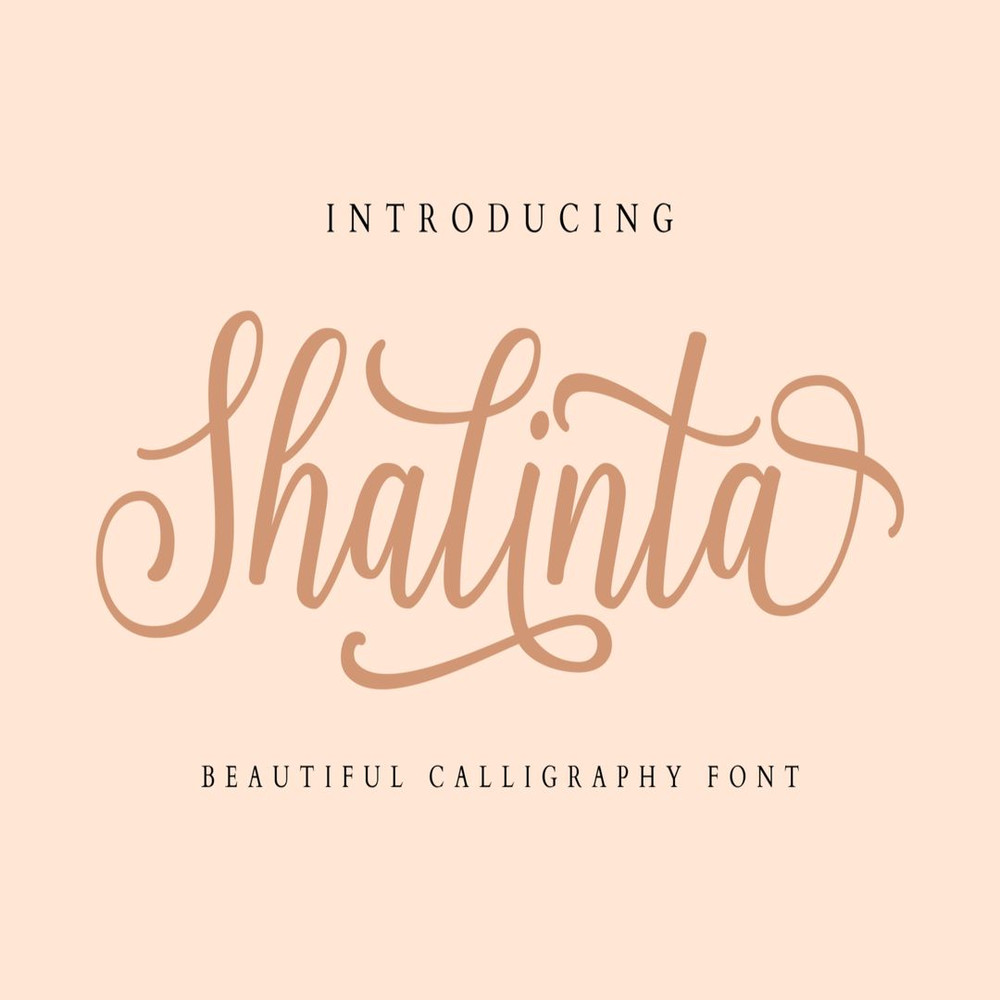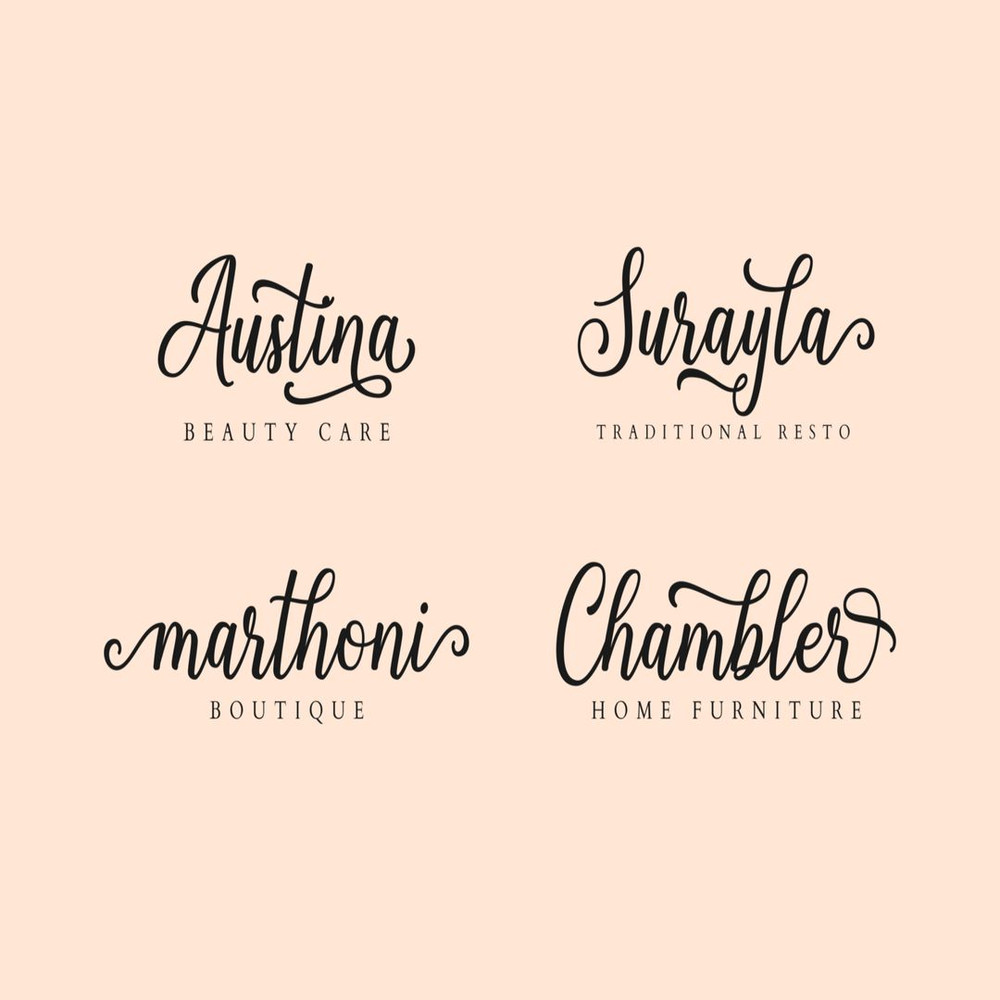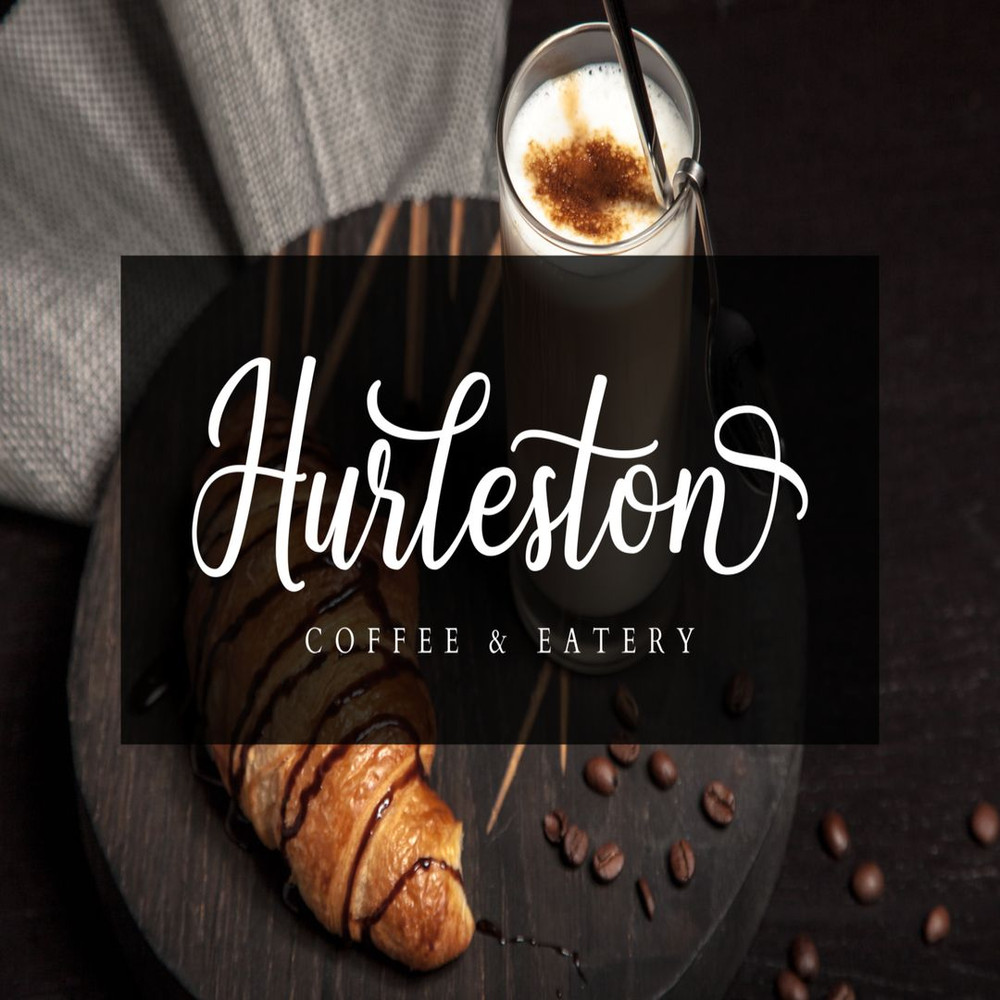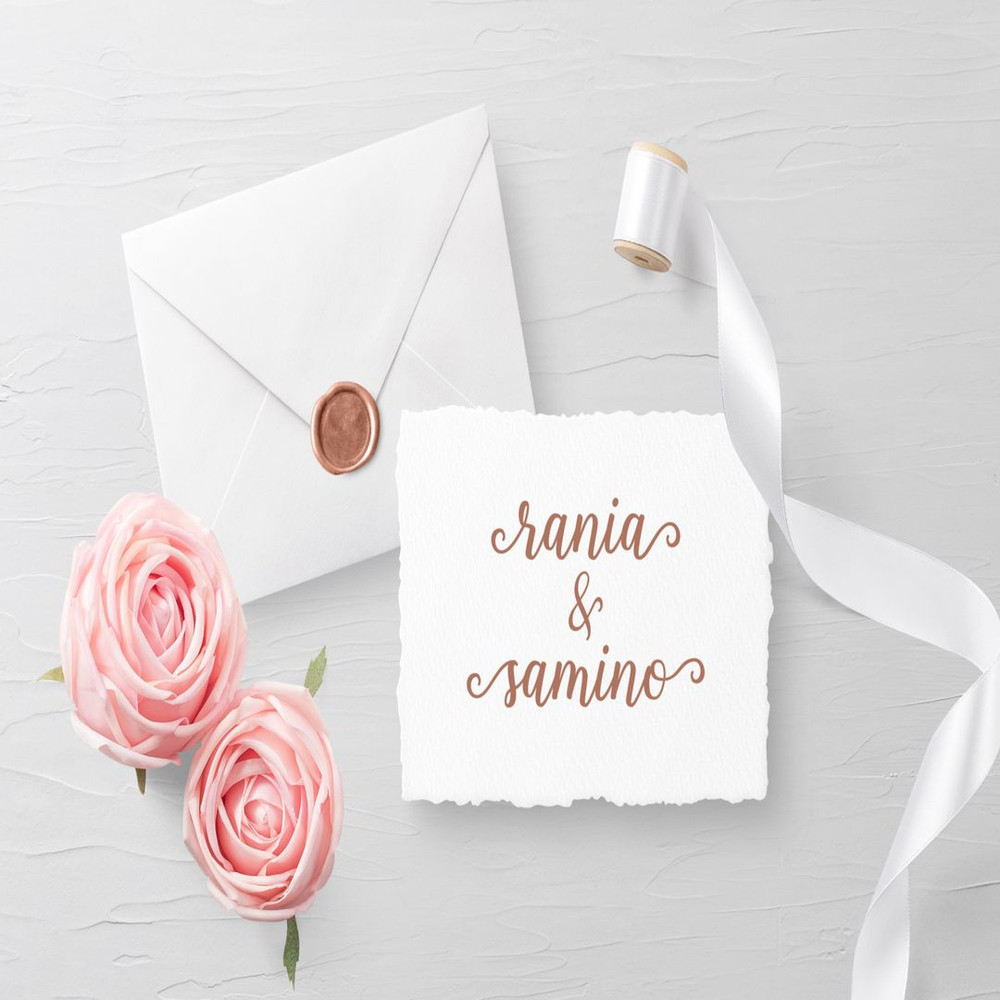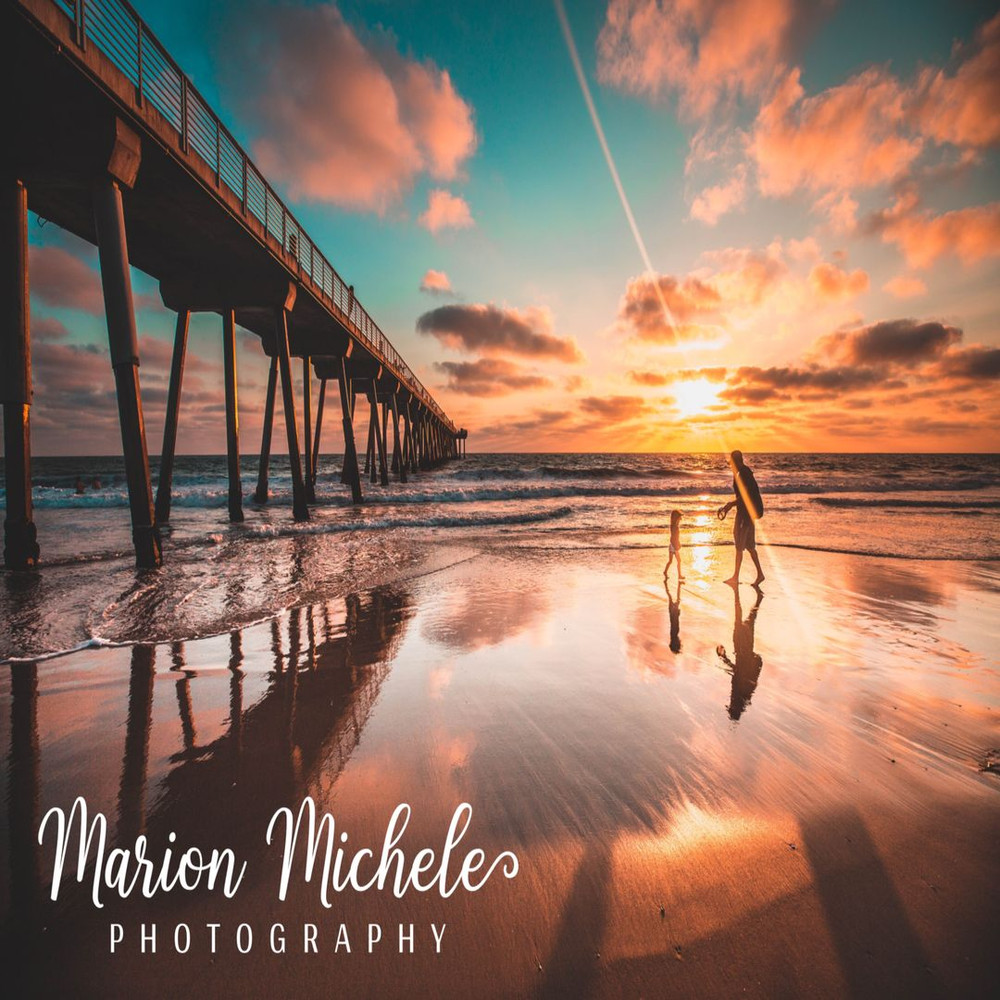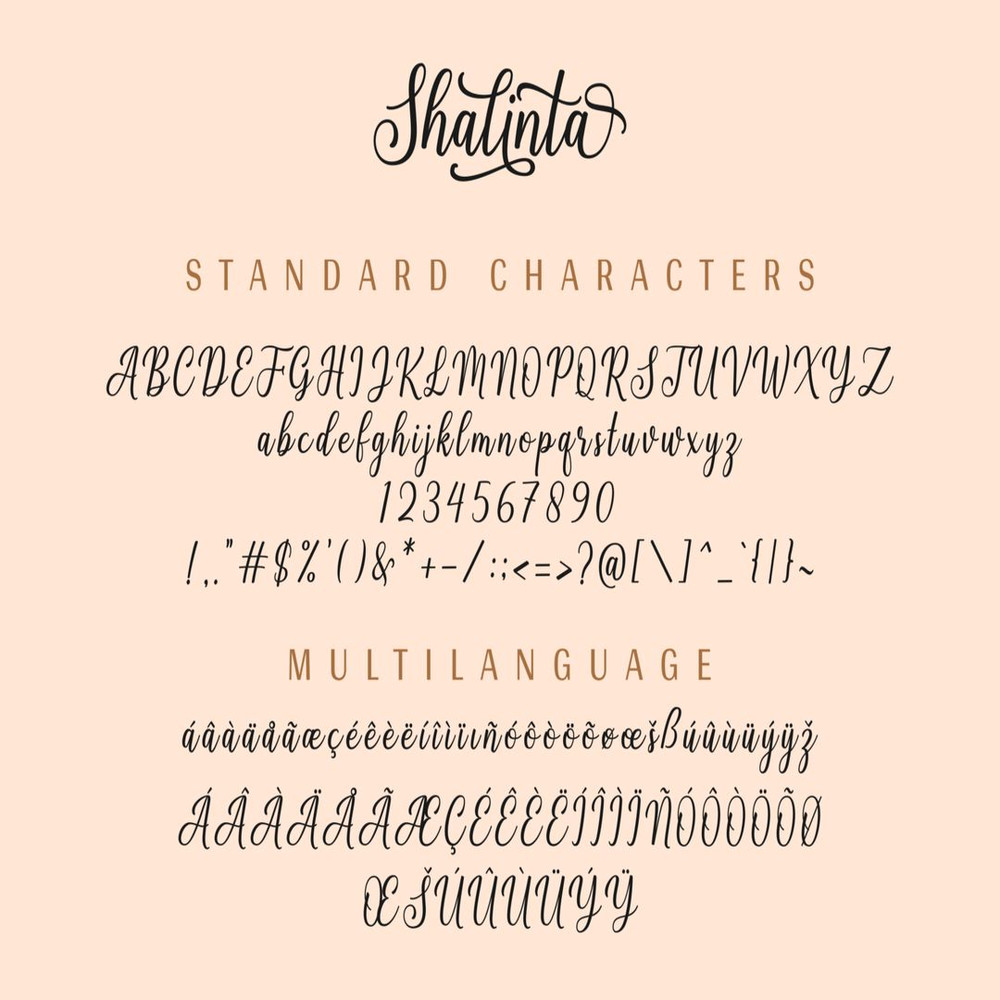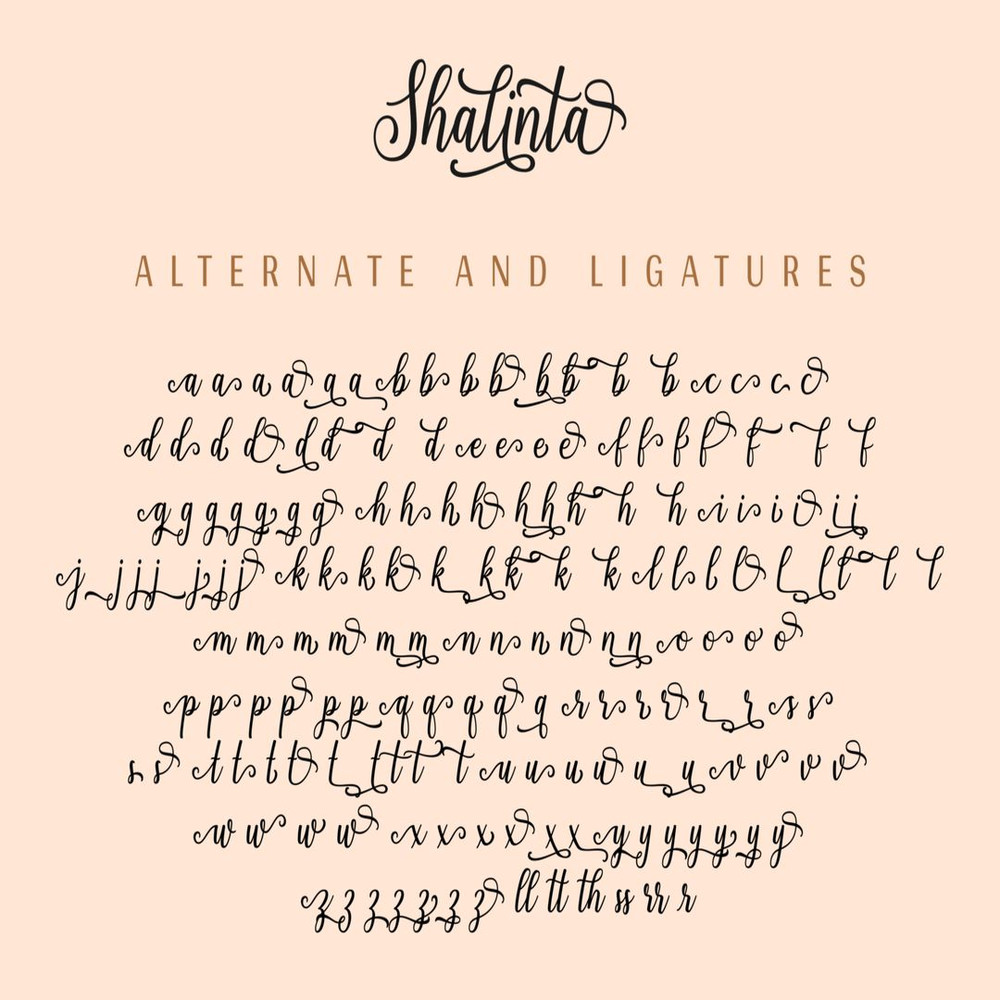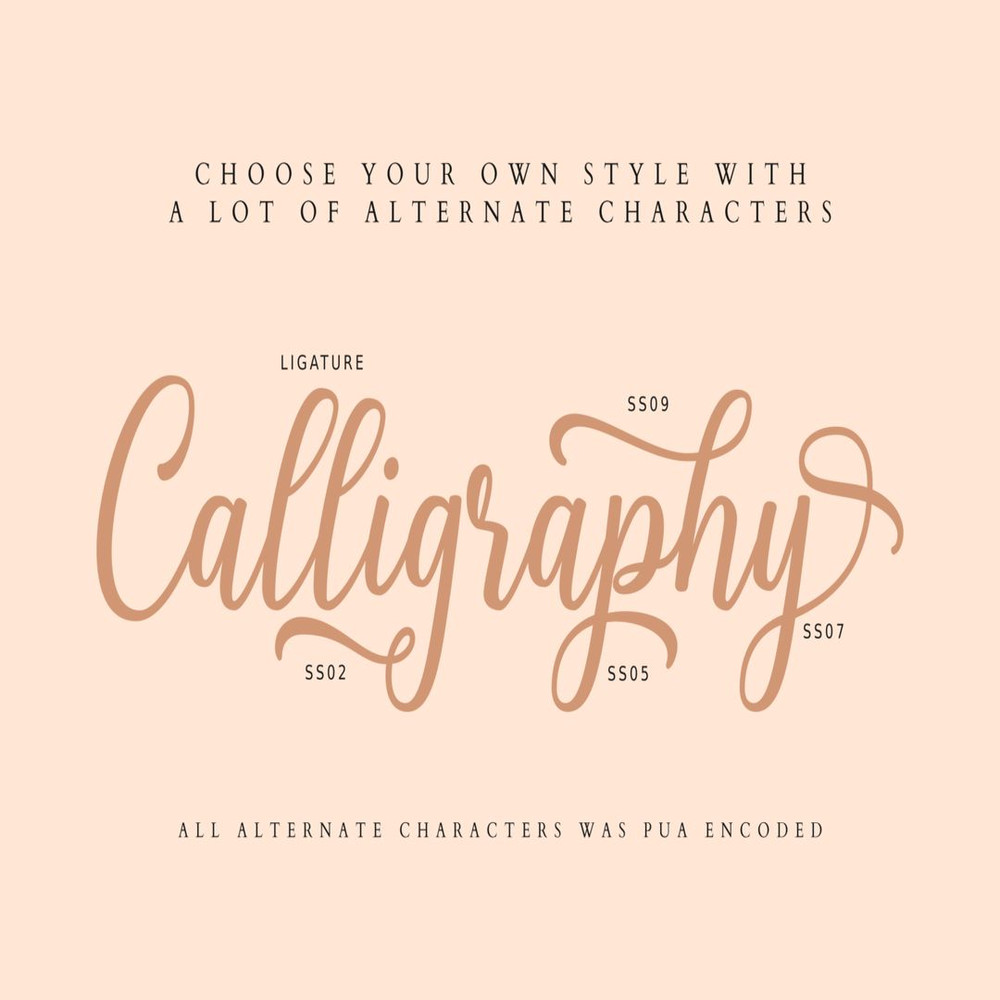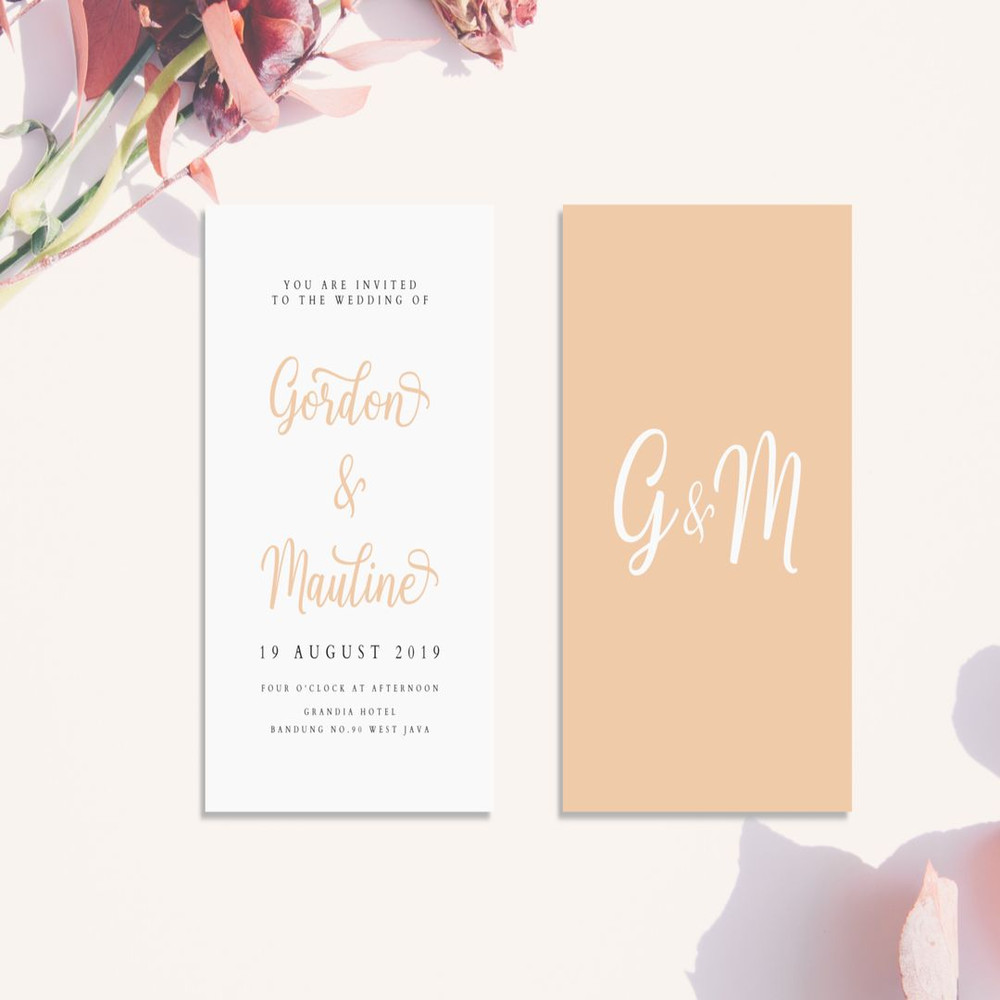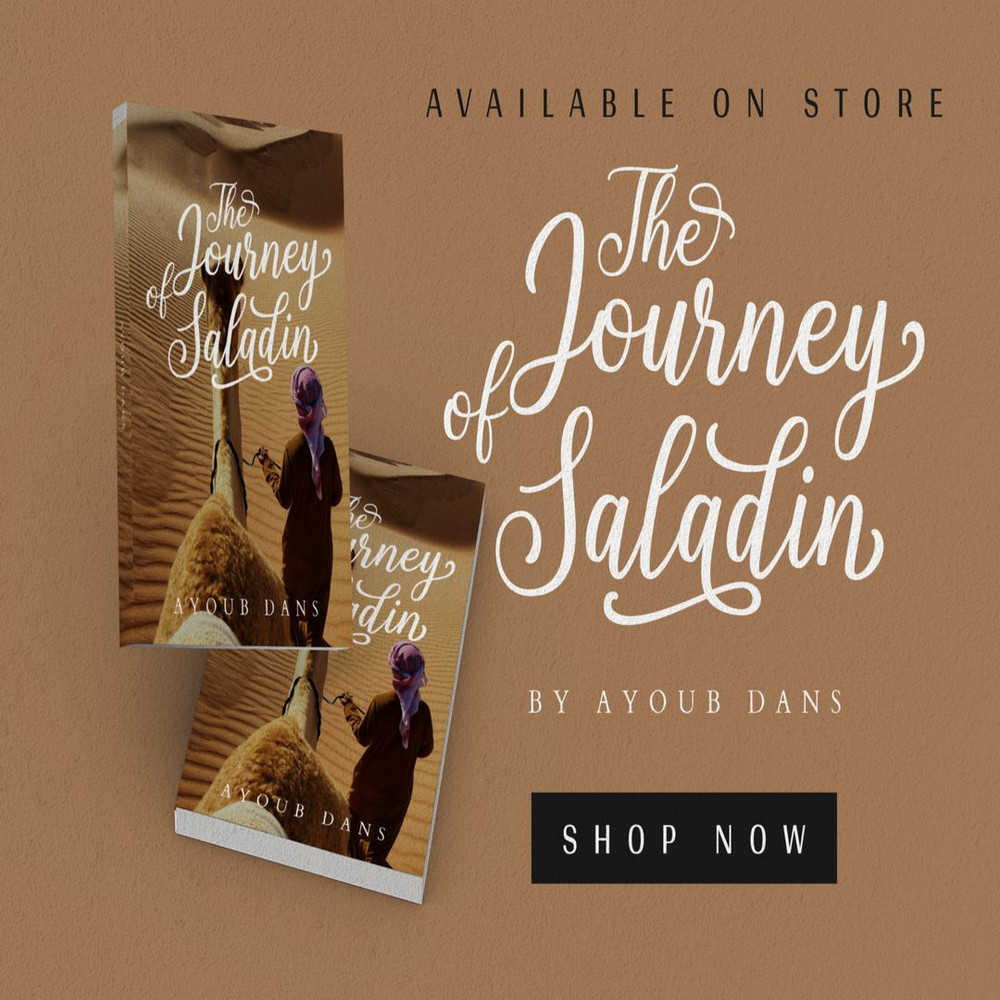
Shalinta is a beautiful calligraphy font with some alternate characters that make a lovely design look. It comes with 359 glyphs included standard characters, multilingual support, ligatures, and alternates that can be used to make your design more beautiful.
Shalinta is perfect for many different projects such as logos & branding, invitation, stationery, wedding designs, social media posts, advertisements, product packaging, product designs, label, photography, watermark, special events or anything.
Alternates
Multilanguage Support
PUA Encoded